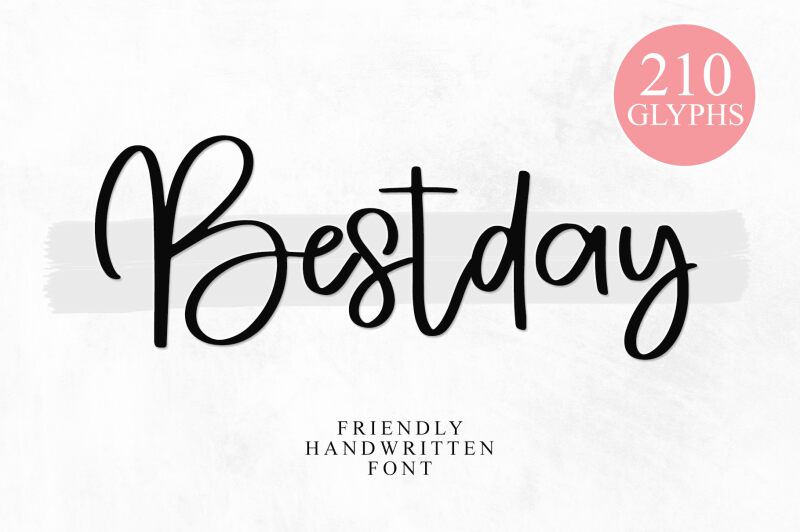
Bestday font by Letterafa Studio is a modern light handwritten font, with a casual feel thanks to its friendly and approachable shapes. Different contemporary applications can benefit from this typeface, including fashion design and advertisement design.
A free handwritten font with everyday use cases such as greeting cards, logos, social media graphics, product labels, packaging design, websites or blogs designs.